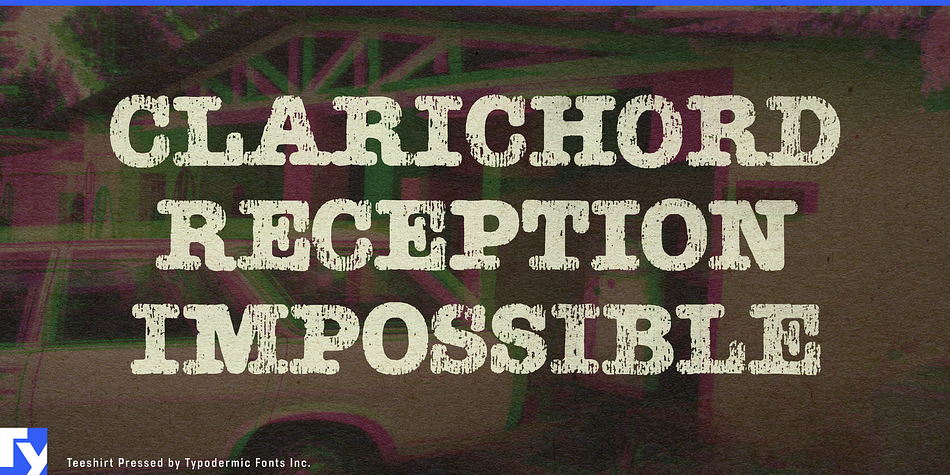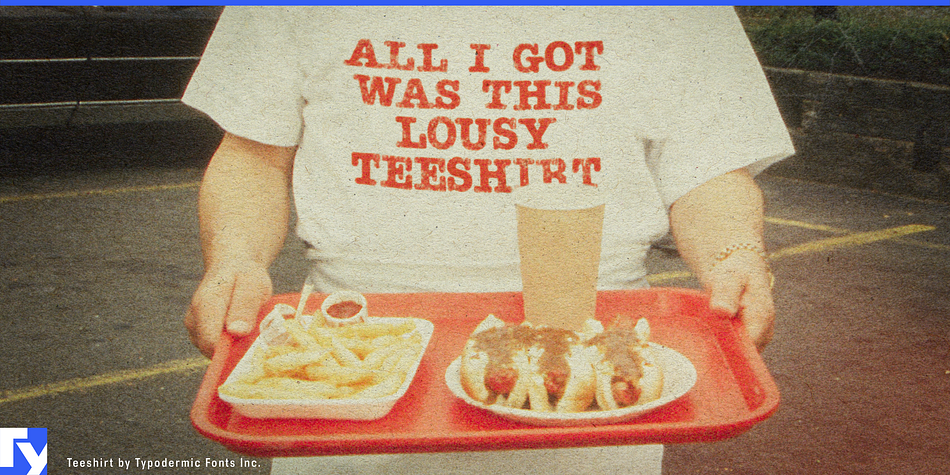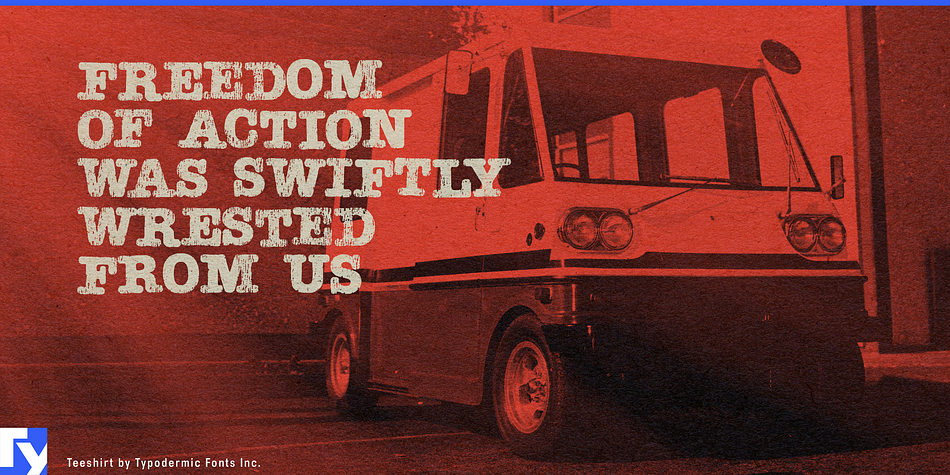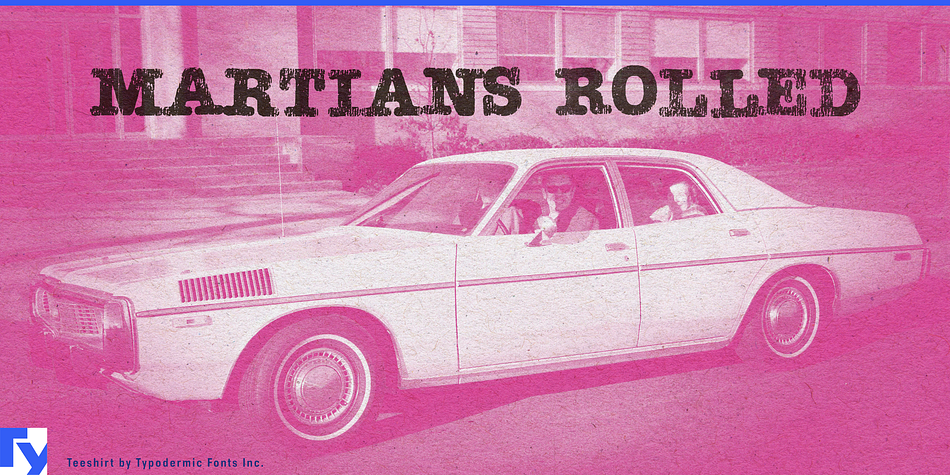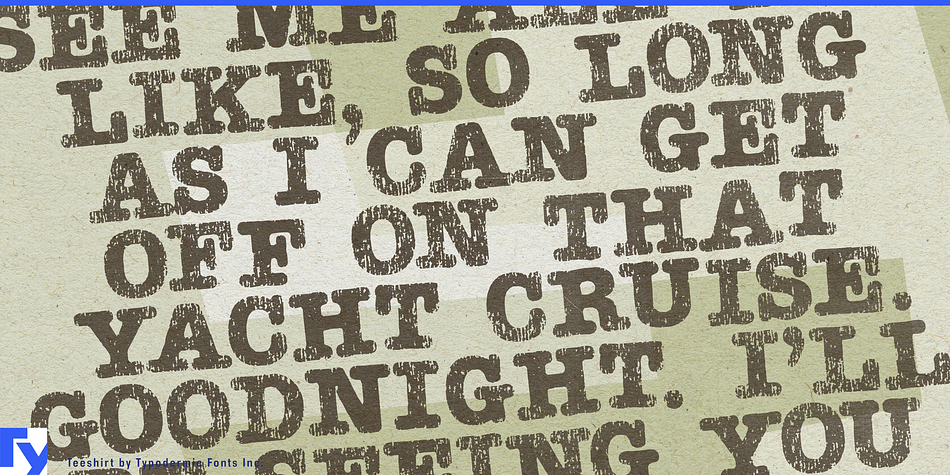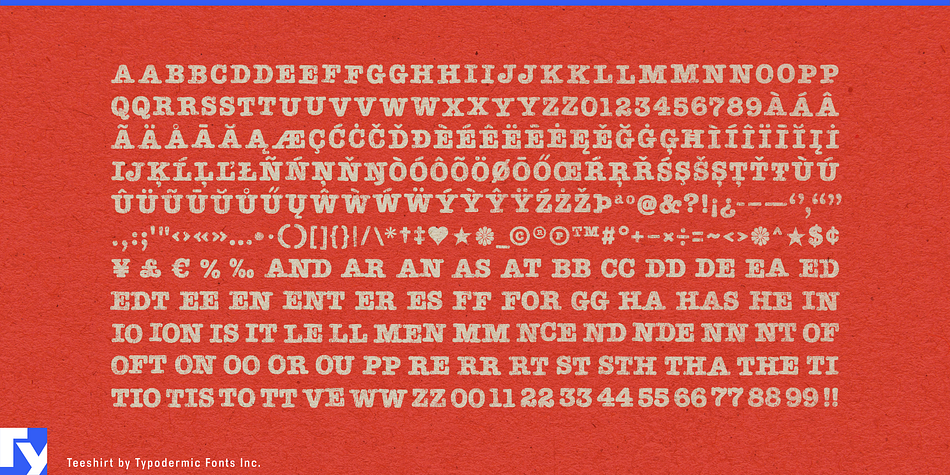
Teeshirt is a grunge font family. This typeface has two styles and was published by Typodermic Fonts Inc.
Back in the olden days of yore (the eighties), a smooth talking typewriter font from the early seventies ruled the roost: American Typewriter. Recreate that authentic eighties vintage Teeshirt style. In OpenType savvy applications, letter pair autoligs help break up the monotony of obviously repeating letters.